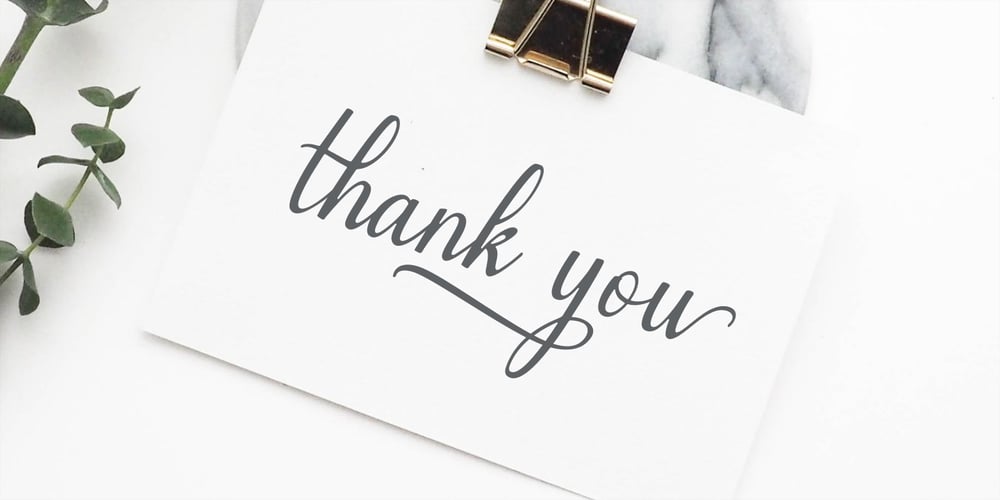
Emilyne Font Family was designed by Faja Abdul Fatah and published by Sibelumpagi. Emilyne contains 1 styles and family package options. Emilyne is a sweet hand-lettered calligraphy font. It includes swashes and alternates which can be used to give your design looks beautiful and elegant. It’s perfect for logos, product packaging, wedding invitations, branding, headlines, signage, labels, signature, book covers, posters, quotes and many more.